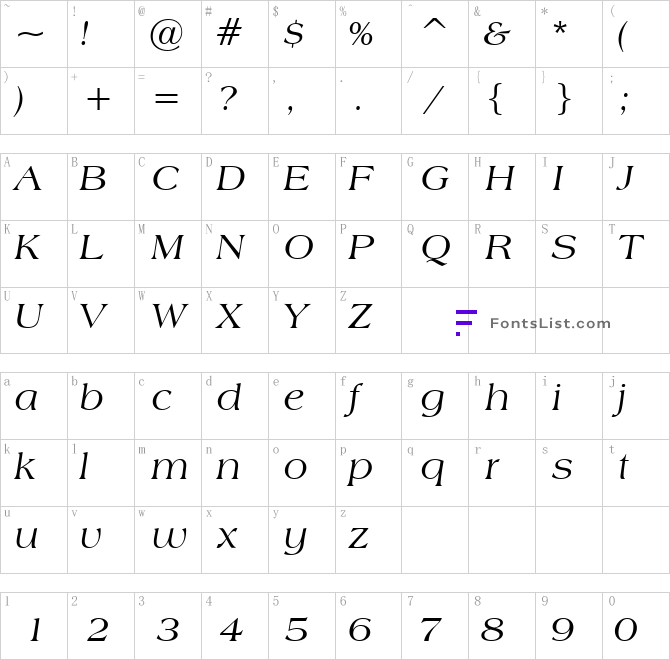
- Font Name:Americana BT
- Subfamily:Americana Italic, Flareserif 721
- Full Name:Americana Italic BT
Americana-Italic-BT.ttf is a very beautiful artistic font, Americana-Italic-BT.ttf is widely used in the design and printing of various books and pictures,Americana-Italic-BT.ttf has a strong visual impact,Americana-Italic-BT.ttf is a commonly used font in newspapers, magazines and books, and is used in posters, e-commerce Poster design, store design, logo design, font design and other fields.Americana-Italic-BT.